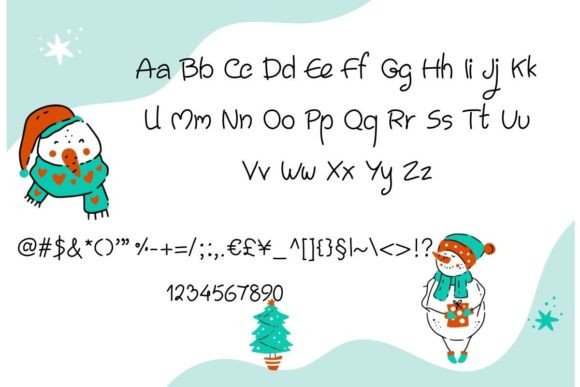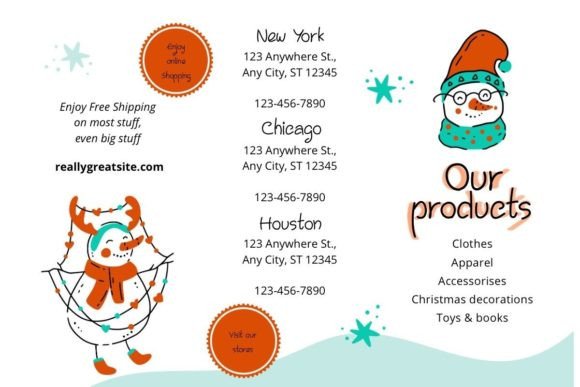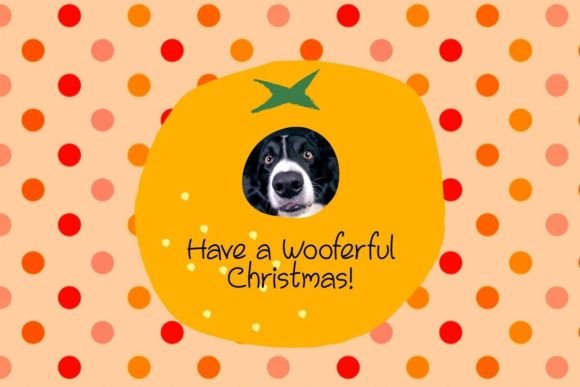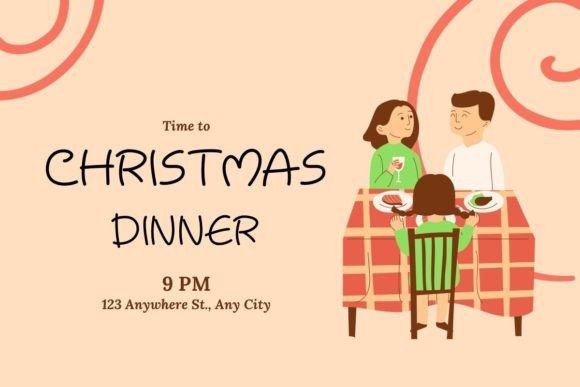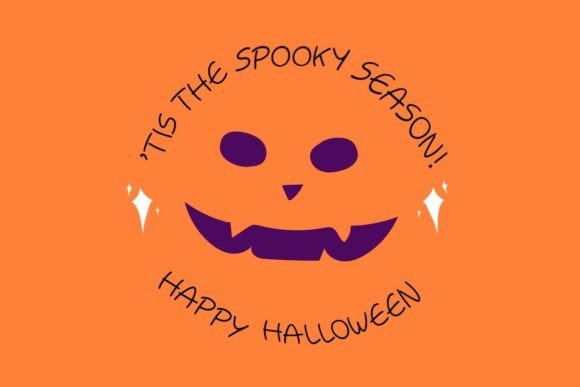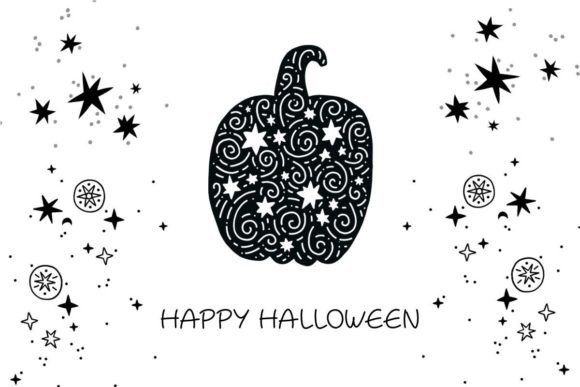
Gingerbreads Font: The Perfect Handwritten Font for Your Creative Projects
Are you a designer, crafter, or DIY enthusiast looking for a unique and playful font to add a personal touch to your creative projects? Look no further than Gingerbreads Font! This beautiful handwritten font is perfect for a wide range of applications, from logos and branding to wedding invitations, business cards, and more.
What is Gingerbreads Font?
Gingerbreads Font is a carefully crafted handwritten font that exudes warmth, friendliness, and approachability. Its unique character and charm make it an ideal choice for designers and crafters who want to add a personal touch to their work. Whether you’re creating a logo, invitation, or social media post, Gingerbreads Font is sure to make your design stand out.
What Can I Use Gingerbreads Font For?
The versatility of Gingerbreads Font is one of its most appealing features. This font can be used for a wide range of creative projects, including:
- Logos and Branding: Create a unique and memorable logo for your business or brand with Gingerbreads Font.
- Wedding Invitations: Add a touch of elegance and sophistication to your wedding invitations with this beautiful handwritten font.
- Business Cards: Stand out from the crowd with a business card that features a personalized and professional-looking font.
- Greeting Cards: Create custom greeting cards for birthdays, holidays, and special occasions with a personal touch.
- Posters and Magazines: Use Gingerbreads Font to add a playful and eye-catching element to your posters and magazine designs.
- Social Media: Elevate your social media posts with a unique and engaging font that will help you connect with your audience.
- Planner Prints: Add a personal touch to your planner prints and make them more functional and fun.
- Websites: Use Gingerbreads Font to create a unique and memorable website that reflects your brand’s personality.
Why is Gingerbreads Font Perfect for Children’s Designs?
Gingerbreads Font is especially useful for children’s designs, including:
- T-Shirts: Create custom t-shirts for kids with a fun and playful font that they’ll love.
- Mugs: Design personalized mugs for kids with a unique and colorful font.
- Posters: Create eye-catching posters for kids’ events, parties, or educational materials with Gingerbreads Font.
The playful and whimsical nature of Gingerbreads Font makes it an ideal choice for children’s designs. Its friendly and approachable character will appeal to kids and parents alike, making it perfect for a wide range of applications.
How Can I Use Gingerbreads Font to Elevate My Designs?
Adding Gingerbreads Font to your creative projects is easy! Here are a few tips to get you started:
- Experiment with Different Colors: Try pairing Gingerbreads Font with different colors and textures to create a unique and eye-catching design.
- Mix and Match Fonts: Combine Gingerbreads Font with other fonts to create a visually appealing and interesting design.
- Add Graphics and Illustrations: Use Gingerbreads Font in conjunction with graphics and illustrations to create a fun and engaging design.
With Gingerbreads Font, the possibilities are endless! Whether you’re a seasoned designer or a DIY enthusiast, this font is sure to inspire your creativity and take your designs to the next level.
In conclusion, Gingerbreads Font is a versatile and beautiful handwritten font that is perfect for a wide range of creative projects. Its unique character and charm make it an ideal choice for designers, crafters, and DIY enthusiasts who want to add a personal touch to their work. Whether you’re creating a logo, invitation, or social media post, Gingerbreads Font is sure to make your design stand out. So why wait? Add Gingerbreads Font to your favorite creative ideas and notice how it makes them come alive!